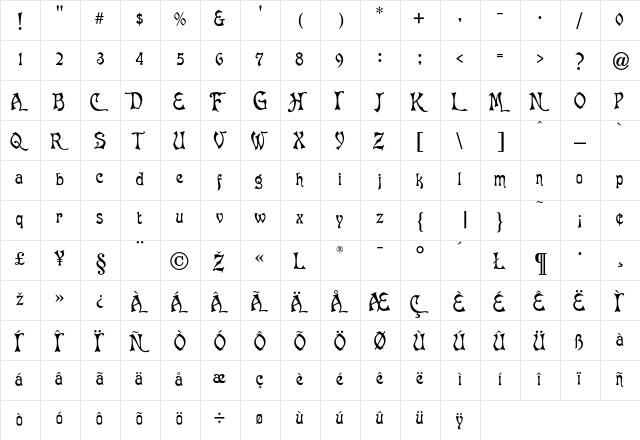
Ferdinand Normal
Design Context for Ferdinand Typeface
Ferdinand is a composed and adaptable typeface that performs quietly and consistently across a wide range of design contexts.